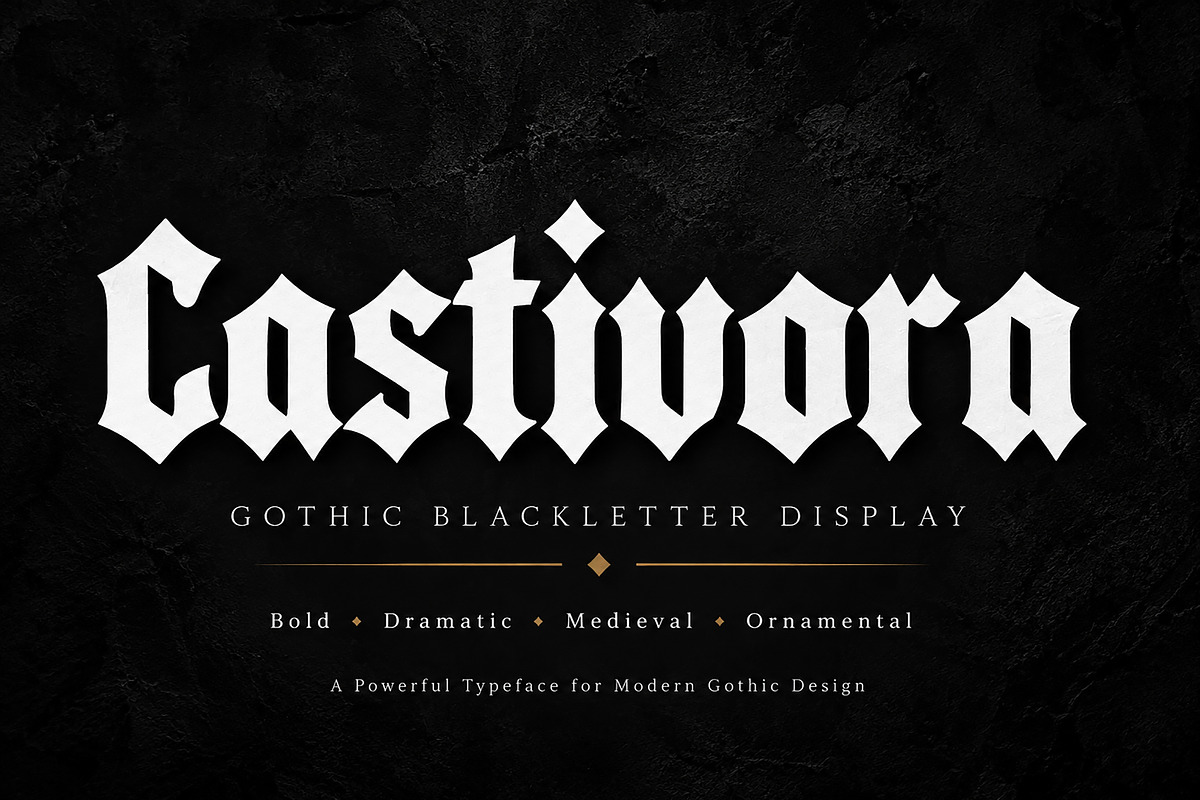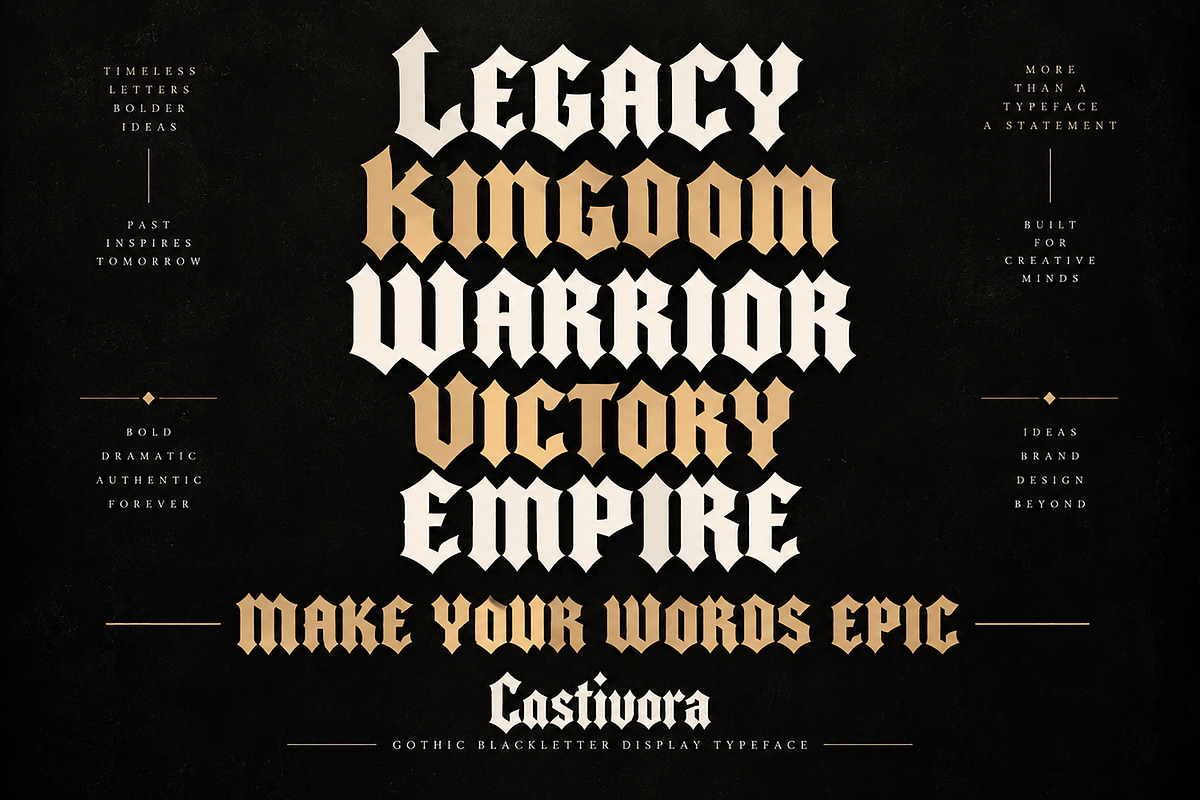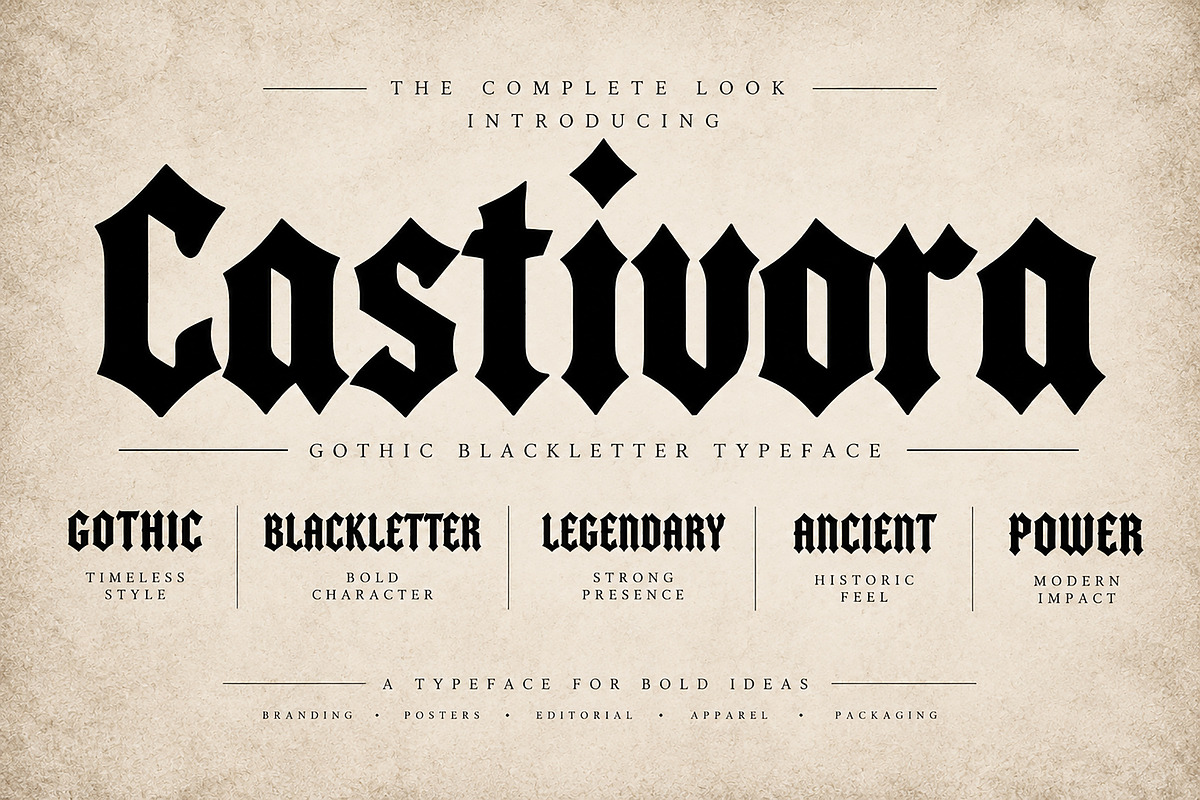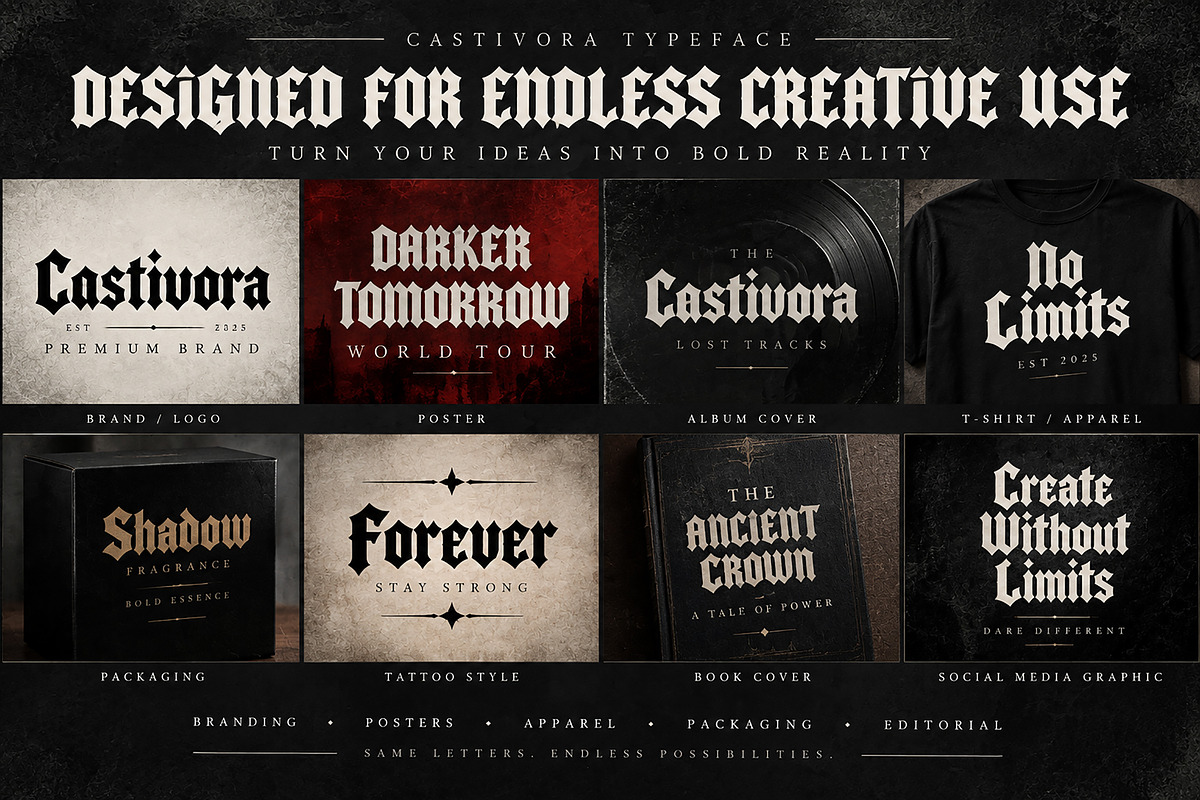
Castivora
Castivora – Gothic Blackletter Display Font
Make your designs bold, dramatic, and unforgettable with Castivora, a powerful Gothic Blackletter display typeface inspired by classic medieval lettering and modern dark aesthetics.
With its sharp, distinctive letterforms and strong visual presence, Castivora is designed to instantly give your typography an authentic gothic, medieval, and powerful character. Its bold display style works especially well for projects where typography needs to become the main visual statement.
Perfect for branding, logos, posters, album artwork, apparel, packaging, book covers, tattoo-inspired designs, social media graphics, merchandise, and editorial projects.
Whether you're creating a dark luxury brand, a striking poster, an album title, or bold apparel artwork, Castivora gives your words a memorable and commanding appearance.
Gothic & Medieval Branding
Logos & Brand Identity
Posters & Flyers
Album & Music Artwork
T-Shirt & Apparel Designs
Book & Magazine Covers
Tattoo-Inspired Typography
Merchandise & Print Design
Editorial Design
Dark & Alternative Creative Projects
Give your words a legendary presence with Castivora.